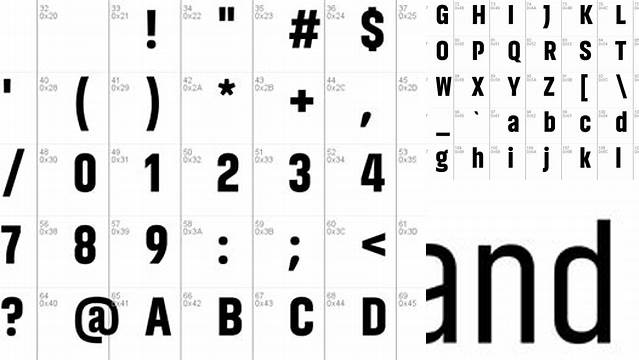
Hey guys! Are you on the hunt for a font that's both modern and versatile? Look no further! In this article, we're diving deep into the Akhand font, a fantastic typeface that's been making waves in the design world. We'll cover everything you need to know, from where to find free downloads to how to best utilize this font in your projects. So, buckle up and let's get started!
What is Akhand Font?
In the realm of typography, Akhand font stands out as a contemporary sans-serif typeface, celebrated for its clean lines and strong geometric forms. This font family, designed with meticulous attention to detail, offers a versatile solution for a wide array of design applications. Its modern aesthetic lends itself perfectly to branding projects, where a sense of sophistication and clarity is paramount. Imagine a logo that instantly conveys professionalism and innovation – Akhand font can help achieve that. Moreover, its legibility across various sizes makes it an excellent choice for website design. Whether it's the body text that needs to be easily readable or the headings that need to grab attention, Akhand font ensures a seamless user experience. The font's adaptability extends to print materials as well. From brochures and flyers to posters and signage, Akhand font maintains its visual appeal and readability, ensuring your message is delivered effectively. Its geometric structure provides a solid foundation for creating visually balanced layouts, making it a favorite among designers who value both form and function. The font's consistent letterforms contribute to a cohesive visual identity, which is crucial for brand recognition. In digital interfaces, Akhand font shines due to its crisp rendering on screens, reducing eye strain and improving readability. Its clean design ensures that text remains sharp and clear, even at smaller sizes, which is essential for mobile-friendly designs. Furthermore, Akhand font's minimalist style pairs well with a variety of other fonts, giving designers the flexibility to create unique and engaging typographic compositions. Its neutral appearance allows it to complement more decorative fonts without overshadowing them, making it a valuable asset in any designer's toolkit. Whether you're working on a cutting-edge tech startup's website or a traditional print campaign, Akhand font offers the versatility and style to meet your needs.
Key Features of Akhand Font
Clean and Modern Design: The hallmark of the Akhand font lies in its sleek and contemporary design, making it a top pick for projects aiming for a modern and polished look. This font family is characterized by its clean lines and uncluttered letterforms, which contribute to its overall minimalist aesthetic. Its simplicity is its strength, allowing it to convey a sense of sophistication without being overly decorative. In branding, this translates to a logo or visual identity that exudes professionalism and clarity. Imagine a startup looking to establish itself as a forward-thinking entity – Akhand font can help communicate that message effectively. Its modernity also makes it suitable for websites and digital interfaces, where a clean and contemporary design is crucial for user engagement. The font's geometric precision ensures that text appears sharp and clear on screens, enhancing readability and reducing visual fatigue. Furthermore, the clean design of Akhand font makes it highly adaptable to various design styles. It can be seamlessly integrated into minimalist layouts, where its simplicity enhances the overall aesthetic, or it can be paired with more decorative elements to create a balanced and visually appealing composition. Whether you're designing a website, a marketing brochure, or a mobile app, Akhand font's clean and modern design ensures that your message is conveyed with clarity and style. Its versatility allows it to adapt to different contexts, making it a valuable asset in any designer's toolkit. This font's ability to convey a sense of modernity without sacrificing readability makes it an ideal choice for projects that require a balance between aesthetics and functionality. Its clean lines and uncluttered letterforms ensure that your text remains legible and visually appealing, regardless of the application.
Versatility: The true beauty of Akhand font lies in its remarkable versatility, fitting seamlessly into diverse design landscapes, from web design to print media. This font family is not limited by a specific style or purpose; instead, it adapts effortlessly to various contexts, making it an indispensable tool for designers. In web design, Akhand font shines as a reliable choice for both headings and body text. Its clean letterforms ensure readability, which is crucial for user experience. Whether you're designing a corporate website, an online portfolio, or an e-commerce platform, Akhand font provides a consistent and professional look. Its versatility extends to print media, where it is equally effective in brochures, posters, and business cards. The font's ability to maintain its visual appeal across different mediums makes it a valuable asset for branding projects that require a cohesive identity. Furthermore, Akhand font's adaptability is evident in its suitability for both formal and informal designs. It can convey a sense of professionalism in corporate communications, while also maintaining a friendly and approachable tone in creative projects. Its versatility allows designers to experiment with different styles and layouts, knowing that Akhand font will provide a solid typographic foundation. The font's neutral appearance allows it to pair well with other fonts, giving designers the flexibility to create unique and engaging compositions. Whether you're working on a minimalist design or a more complex layout, Akhand font's versatility ensures that your message is conveyed effectively and stylishly. Its ability to adapt to various design needs makes it a go-to choice for designers seeking a reliable and versatile typeface.
Legibility: One of the standout features of Akhand font is its exceptional legibility, ensuring that your message is conveyed clearly and effectively, regardless of the medium. This font family is designed with readability in mind, featuring letterforms that are easily distinguishable and well-spaced. In digital environments, where screen resolution and viewing conditions can vary, Akhand font's legibility is particularly valuable. Its clean and uncluttered design ensures that text remains sharp and clear, even at smaller sizes, which is crucial for mobile-friendly websites and applications. The font's consistent letterforms contribute to a smooth reading experience, reducing eye strain and enhancing user engagement. In print, Akhand font's legibility is equally important, especially in documents, brochures, and posters where large amounts of text need to be easily readable. The font's clear and distinct characters ensure that your message is conveyed without any ambiguity, making it an ideal choice for professional communications. Furthermore, Akhand font's legibility extends to various font weights and styles within the family. Whether you're using a light weight for body text or a bold weight for headings, the font maintains its readability, ensuring consistency across your design. This versatility allows you to create typographic hierarchies that are both visually appealing and easy to navigate. The font's focus on legibility makes it a valuable asset for any project that prioritizes clear and effective communication. Whether you're designing a website, a print advertisement, or a user interface, Akhand font's readability ensures that your message is received loud and clear. Its commitment to clarity makes it a reliable choice for designers seeking a typeface that performs well in a variety of contexts.
How to Use Akhand Font in Your Projects
Alright, guys, we've covered a lot about the Akhand font, from its features and free download sources to how to use it effectively in your designs. Akhand font is a fantastic typeface that offers a blend of modernity, versatility, and legibility. Whether you're a seasoned designer or just starting out, Akhand font can be a valuable asset in your typographic toolkit. Its clean lines and geometric forms make it well-suited for a wide range of applications, from websites and marketing materials to presentations and branding projects. By following the best practices for font usage and experimenting with different font pairings, you can harness the full potential of Akhand font to create visually stunning and impactful designs. So, go ahead and explore the world of Akhand font – download it, experiment with it, and let your creativity flow. Remember, typography is an art form, and Akhand font is just one of the many tools you can use to express your unique vision. Happy designing!